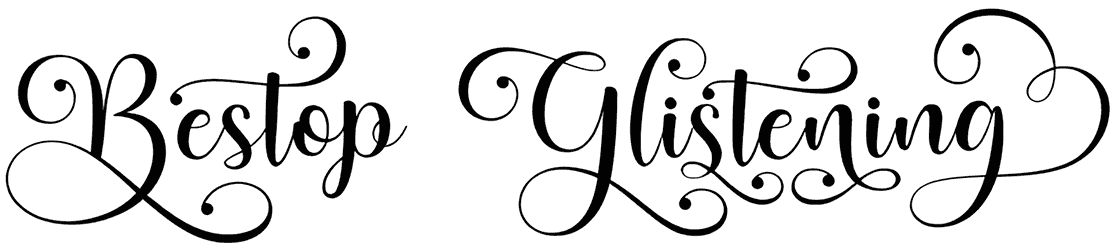
Caytielo Font
For developing many greeting cards, posters, branding, school paintings, and other displays that need a strong announcement with an urban effect, you need a script font. Caytielo, within calligraphy styles runs smartly to wrap up for the lack of numbers.
So this calligraphy font widens your selection range in the middle of designing stunning graphic content. Also, we strongly suggest you take a look at the RB font cluster and enjoy the daily updates.
Designed by: Maulana Creative